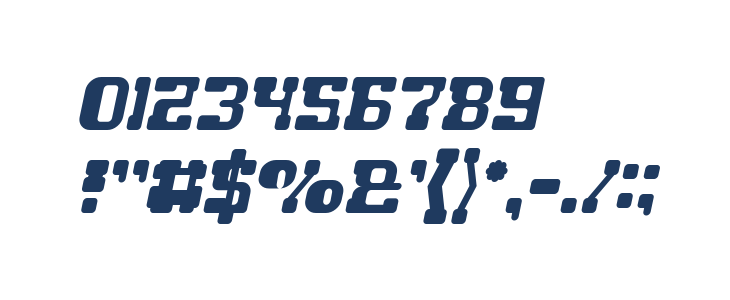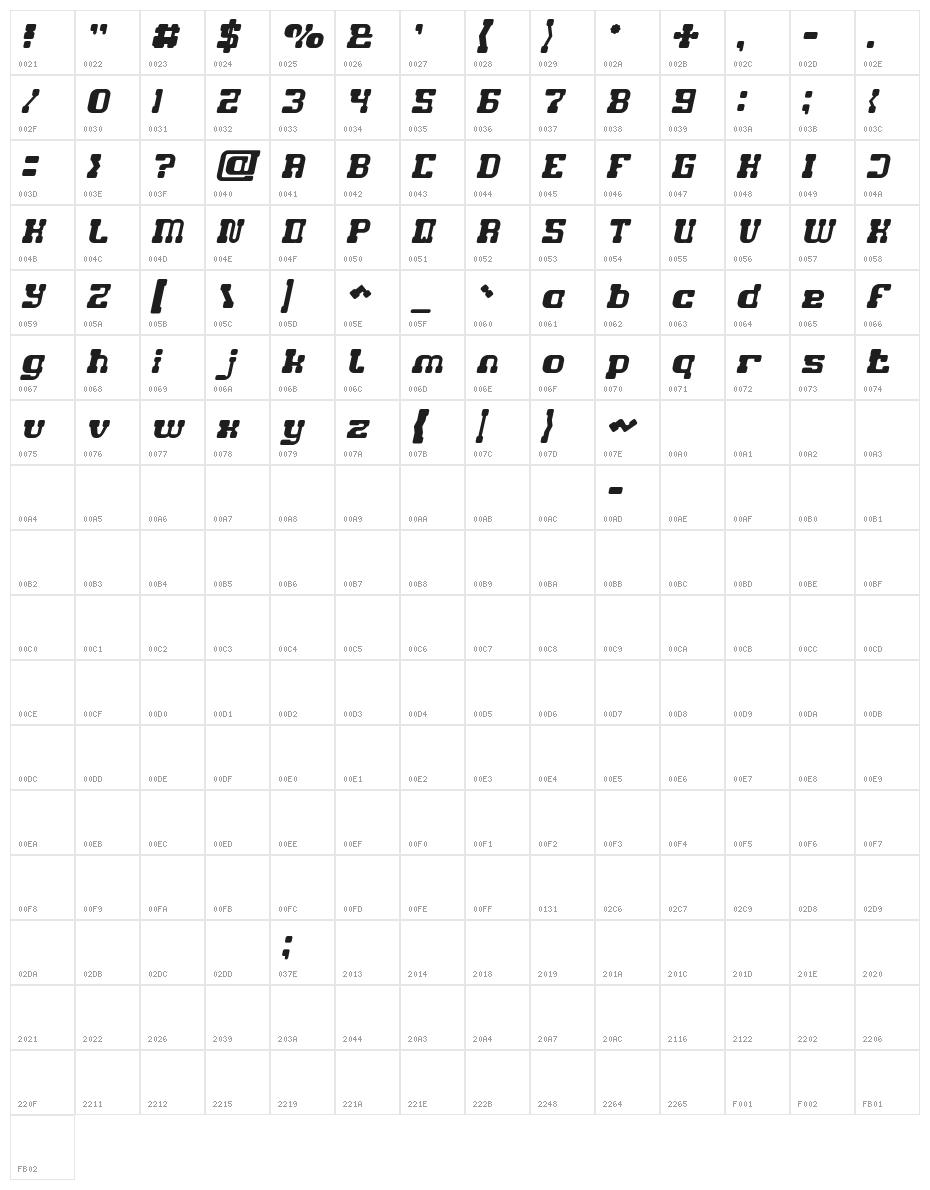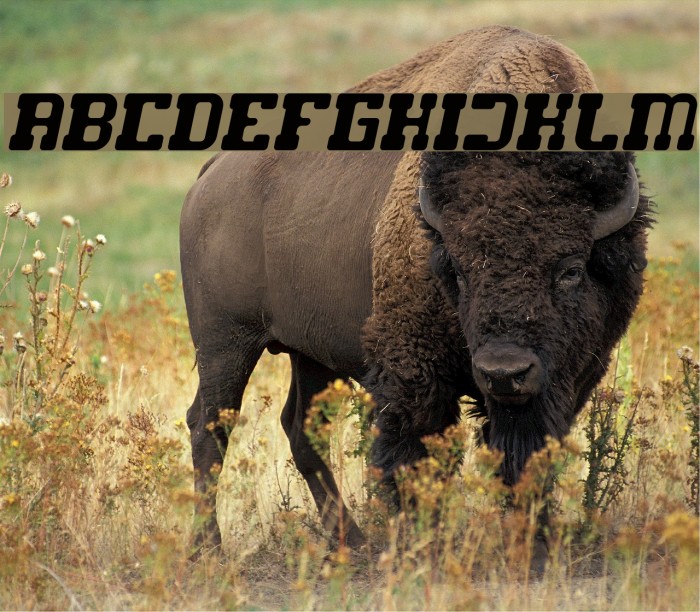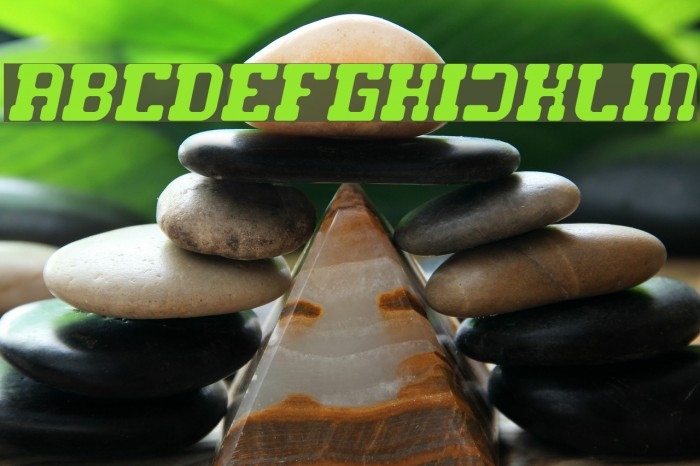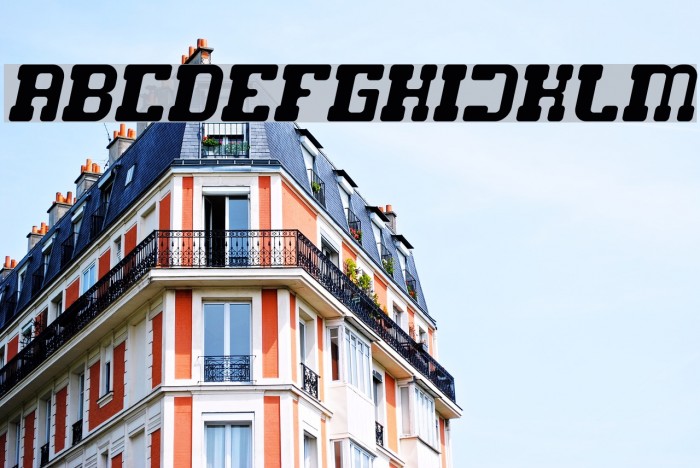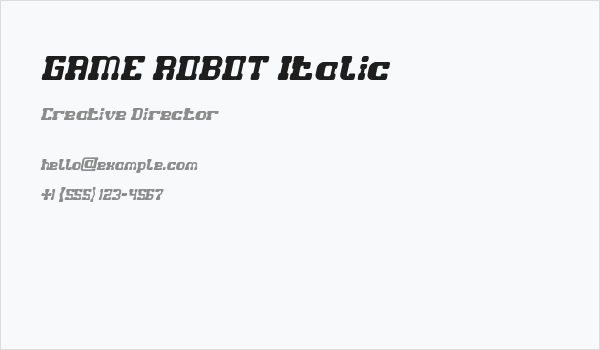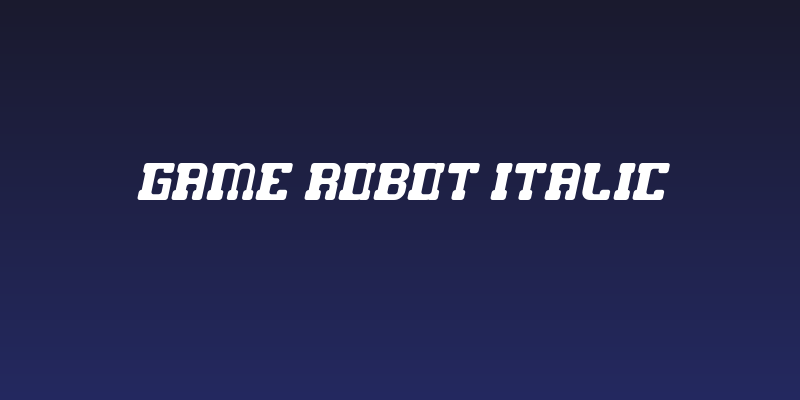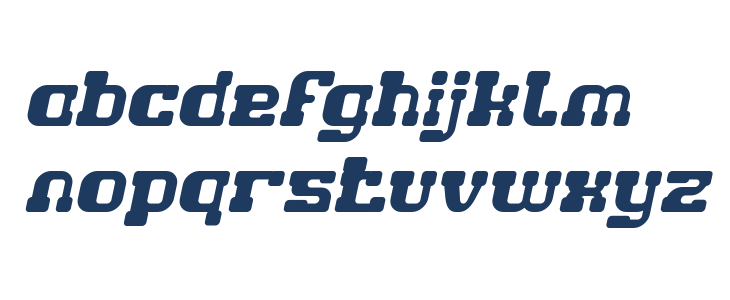
GAME ROBOT Italic Font
GAME ROBOT Italic Description
This font features a bold, futuristic design with a strong emphasis on geometric shapes and rounded edges. The characters are slightly slanted, giving an italicized appearance that adds a dynamic and modern feel. The uppercase and lowercase letters maintain a consistent style, with uniform stroke thickness and a robust presence. The numbers and special characters follow the same design principles, ensuring a cohesive look across all elements. This font is ideal for projects that require a bold and impactful statement, such as technology-related branding, video game titles, or sci-fi themed designs.
| Proposed Projects | Ideal for technology branding, video game titles, and sci-fi themed designs. |